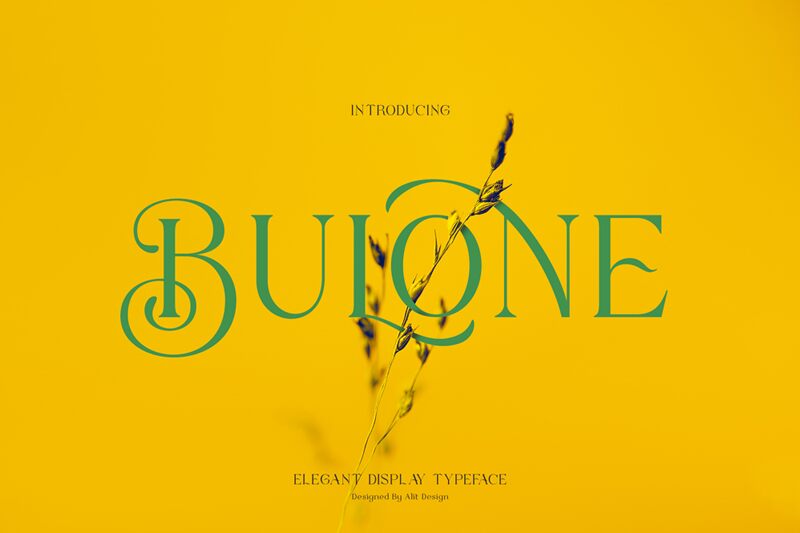
Bulone, the brainchild of Alit Design, is a stunning semi-light serif font that embodies elegance and sophistication. Its graceful curves and delicate strokes make it suitable for a wide range of projects including wedding invitations, fashion magazines, and high-end branding materials. The Bulone font typeface's slender lines give it an air of refinement while its small details add an element of uniqueness to any design. Whether you're looking to create a classic or contemporary look, Bulone is the perfect choice for anyone who wants to elevate their typography game. With its timeless appeal and versatility, this font will surely leave a lasting impression on your audience.